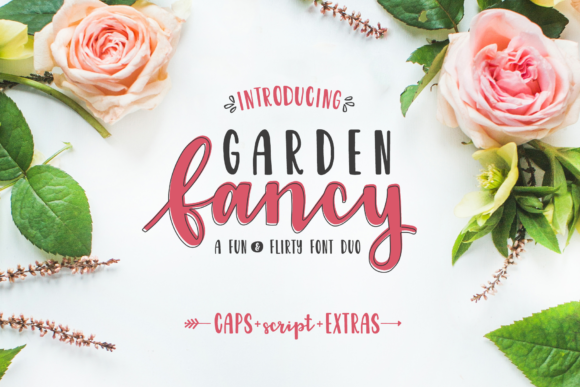
Garden Fancy Duo Font: Elevate Your Designs with this Heavenly Match
In the world of typography, finding the perfect font duo can be a daunting task. However, when it comes to the Garden Fancy Duo Font, it’s a match made in heaven. This stunning combination of a script font and a dingbat font is designed to take your designs to the next level. In this article, we’ll explore the unique features of the Garden Fancy Duo Font and how it can add a modern and cute feel to your designs.
The Perfect Pairing: Script and Dingbat Fonts
The Garden Fancy Duo Font consists of two complementary fonts: a beautiful script font and a charming dingbat font. The script font boasts elegant ligatures that add a touch of sophistication to any design. Meanwhile, the dingbat font features a delightful collection of icons and graphics that can be used to add visual interest and personality to your work.
The ligatures of the script font perfectly complement the dingbat’s style, creating a harmonious and visually appealing combination. When used together, these two fonts create a unique and captivating design that is sure to grab attention.
Why Choose the Garden Fancy Duo Font?
So, why should you choose the Garden Fancy Duo Font for your next design project? Here are just a few compelling reasons:
• Unique and Eye-Catching: The Garden Fancy Duo Font offers a distinctive and stylish combination that will set your designs apart from the crowd.
• Modern and Cute Feel: The font duo’s modern and playful aesthetic makes it perfect for designs that require a fresh and youthful vibe.
• Versatile: The Garden Fancy Duo Font can be used for a wide range of design projects, from branding and packaging to wedding invitations and social media graphics.
• Elegant Ligatures: The script font’s elegant ligatures add a touch of sophistication and elegance to any design.
• Delightful Dingbats: The dingbat font’s charming icons and graphics provide endless opportunities for creative expression and visual storytelling.
Example: Wedding Invitation Design
Imagine creating a beautiful wedding invitation using the Garden Fancy Duo Font. The script font’s elegant ligatures can be used to create a stunning header, while the dingbat font’s charming icons can be used to add a playful touch to the design.
In conclusion, the Garden Fancy Duo Font is a match made in heaven that can elevate your designs to new heights. With its elegant script font and charming dingbat font, this font duo offers a unique and captivating combination that is sure to grab attention. Whether you’re designing a wedding invitation, branding materials, or social media graphics, the Garden Fancy Duo Font is the perfect choice for adding a modern and cute feel to your work.